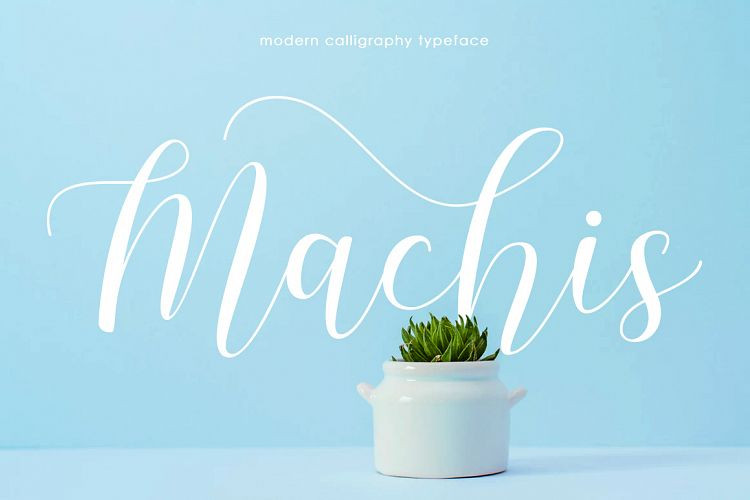
Machis Calligraphy – Demo Font
Machis Font is a calligraphy script font in lettering style. This is a beautiful and interesting calligraphy handwriting font. You can see from scratches that give a realistic and modern style. It includes amazing swashes in 3 styles, which gives you the opportunity to create multiple unique designs with just this one download. It is suitable for logos, web, stationary kits, banners, greeting cards, quotes and every other design which needs an elegant touch.